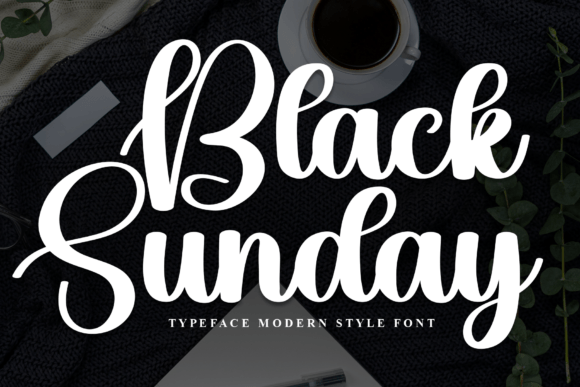
The Elegance of Black Sunday Font: A Designer’s Delight
I’ll never forget the time I was working on a wedding invitation project, and my client asked for a font that exuded elegance and sophistication. I scoured the internet, tried out countless fonts, but nothing seemed quite right. That was until I stumbled upon Black Sunday Font. ✨ It was love at first sight! The stylish and elegant script font instantly elevated my design, and my client was thrilled. In this article, I’ll share my experience with Black Sunday Font, its features, and how to make the most of it in your designs.
An Honest Review of Black Sunday Font
- ✨ Elegant and sophisticated script style
- ✅ Perfect for wedding invitations, thank you cards, and greeting cards
- 💫 Works beautifully with quotes, logos, and business cards
- 🎨 Highly versatile and can be used in various design projects
While Black Sunday Font is an excellent choice for many designs, there are a few things to keep in mind:
- ⚠️ May not be suitable for body text or long paragraphs due to its script nature
A Practical Guide to Using Black Sunday Font
The Backstory of Black Sunday Font
Black Sunday Font was created with the intention of providing a stylish and elegant script font for designers. While the exact backstory is unclear, it’s evident that the designer aimed to craft a font that would add a touch of sophistication to any design. The result is a beautiful font that has captured the hearts of many designers.
| What is Black Sunday Font best used for? | Black Sunday Font is perfect for designs that require an elegant and sophisticated script style, such as wedding invitations, thank you cards, quotes, and greeting cards. |
| Is Black Sunday Font suitable for body text? | No, Black Sunday Font is not recommended for body text or long paragraphs due to its script nature. It’s best used for headlines, titles, or short text snippets. |